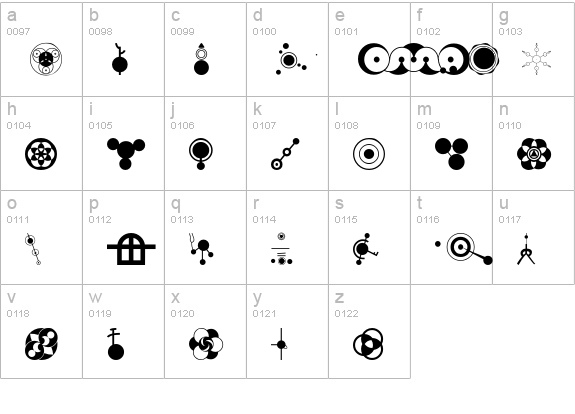
CropBats font is a unique and versatile typeface that combines elements of crop circles with modern design aesthetics. This font features intricate patterns and geometric shapes that give it a mysterious and futuristic look. Perfect for creating eye-catching headlines, logos, or other design projects, CropBats font is sure to make a bold statement. What's even better is that CropBats font is available for free download at FontsMarket.com. This means you can easily add this captivating font to your collection without any cost. Don't miss out on the opportunity to enhance your designs with the captivating CropBats font - download it for free today!